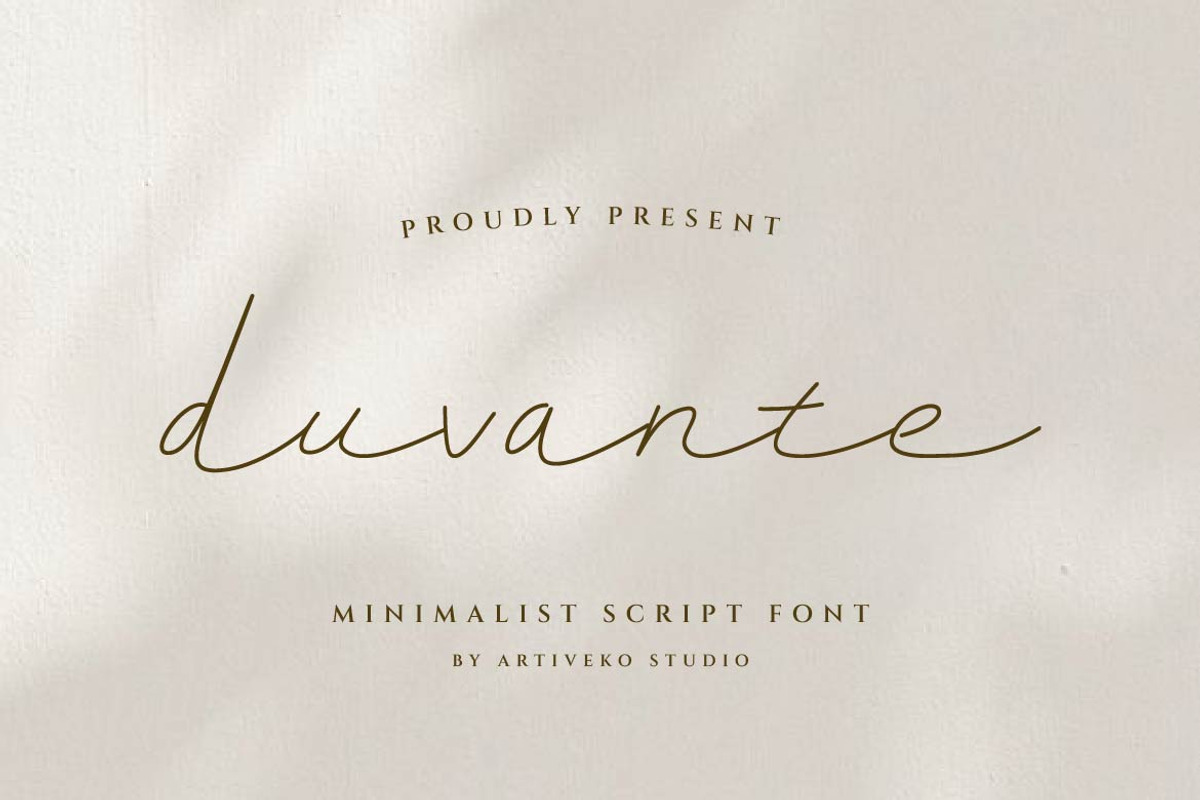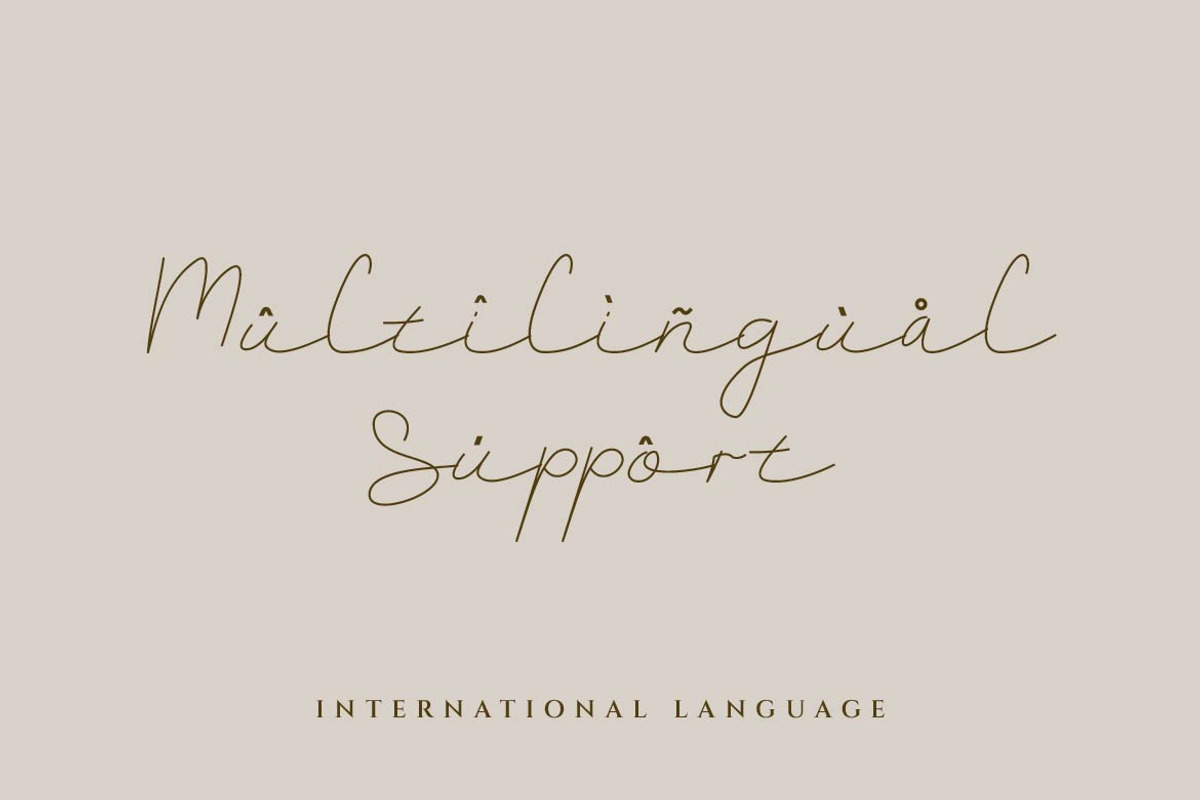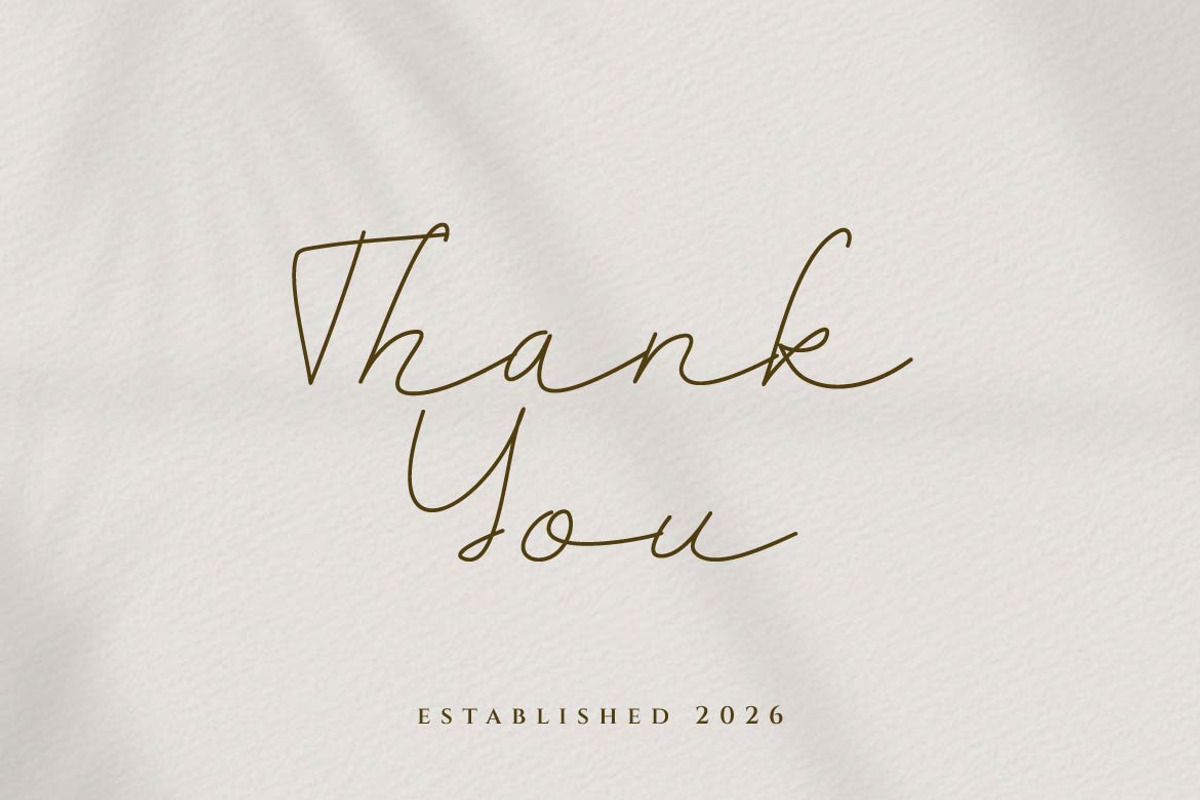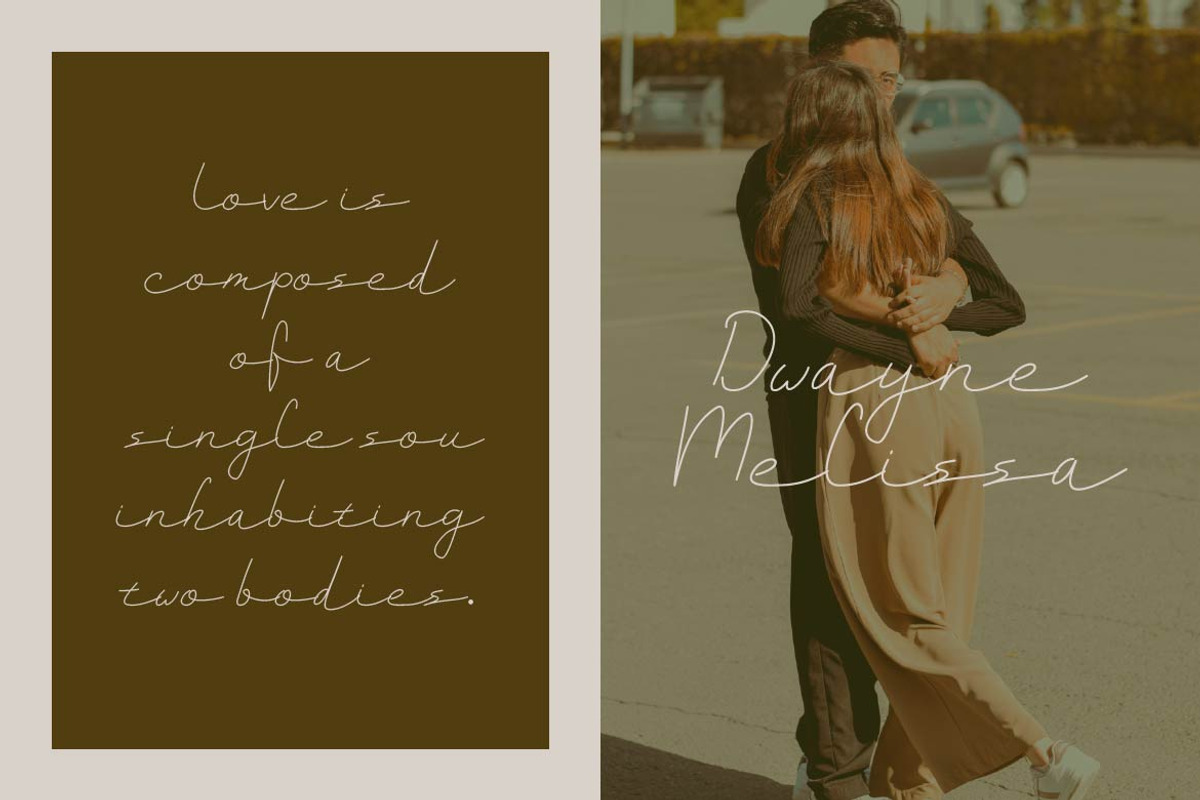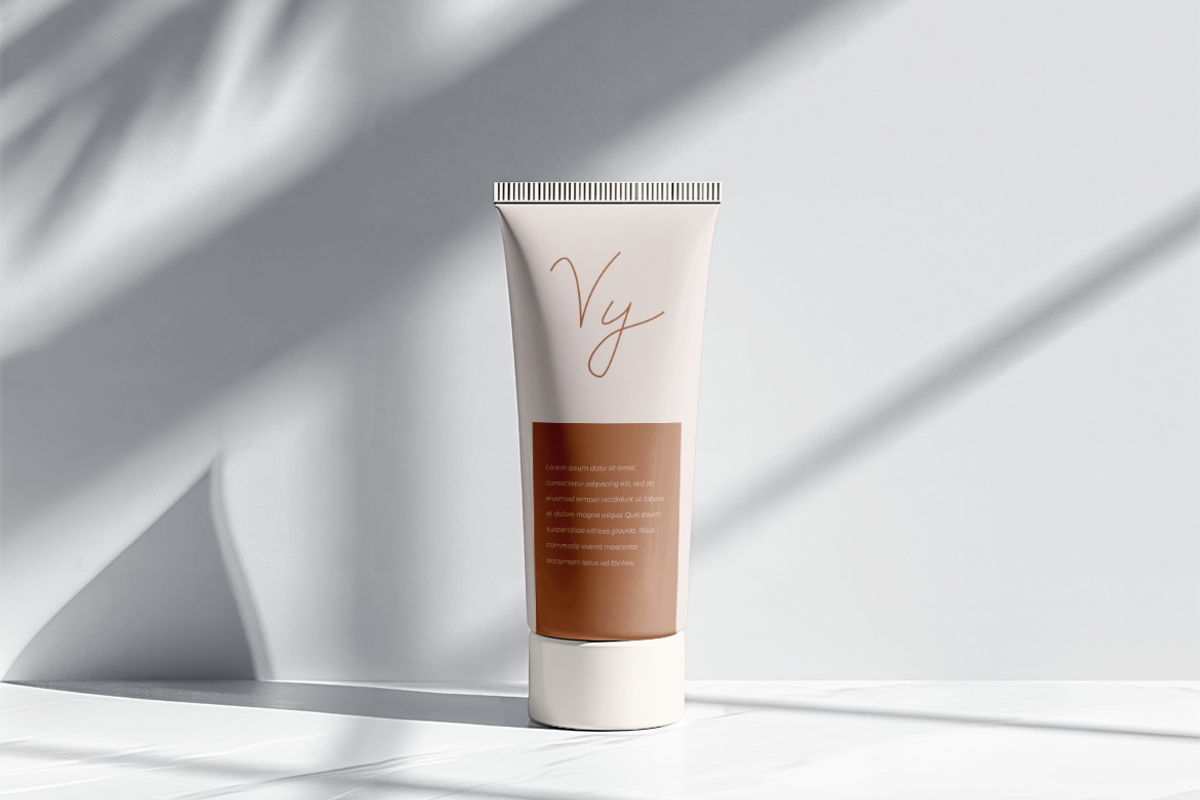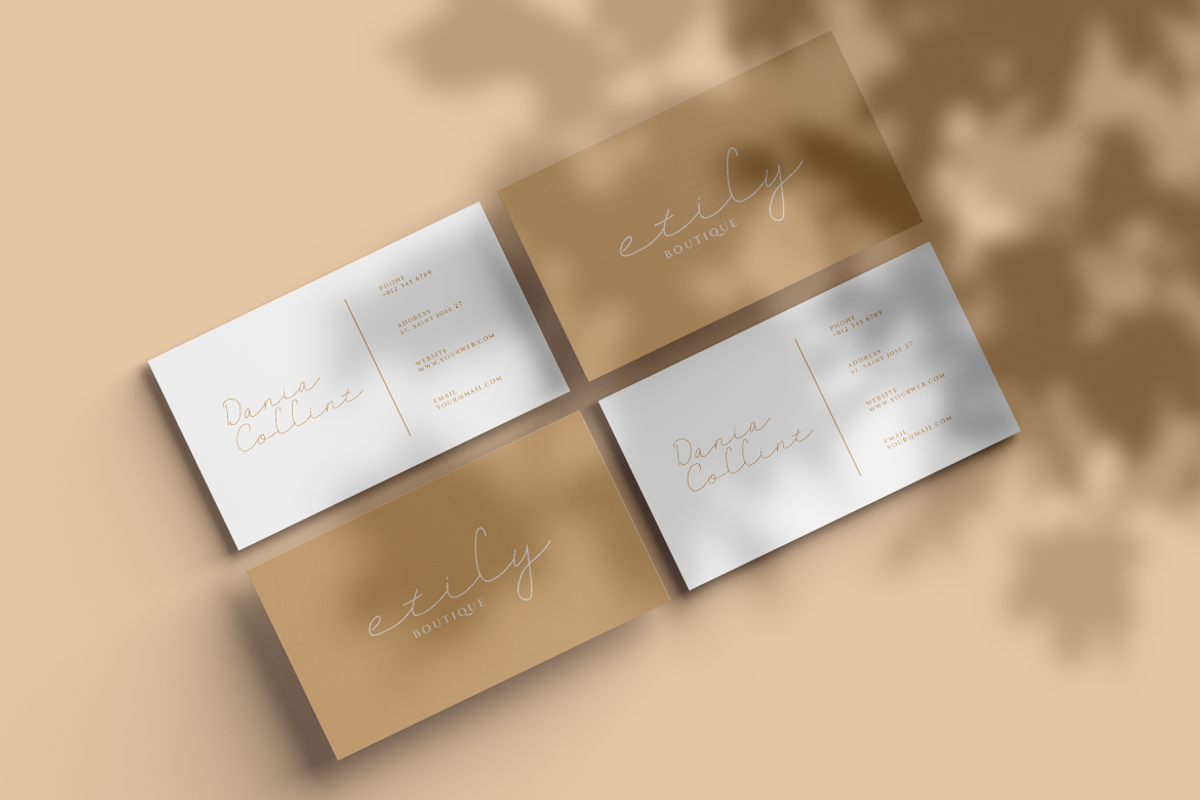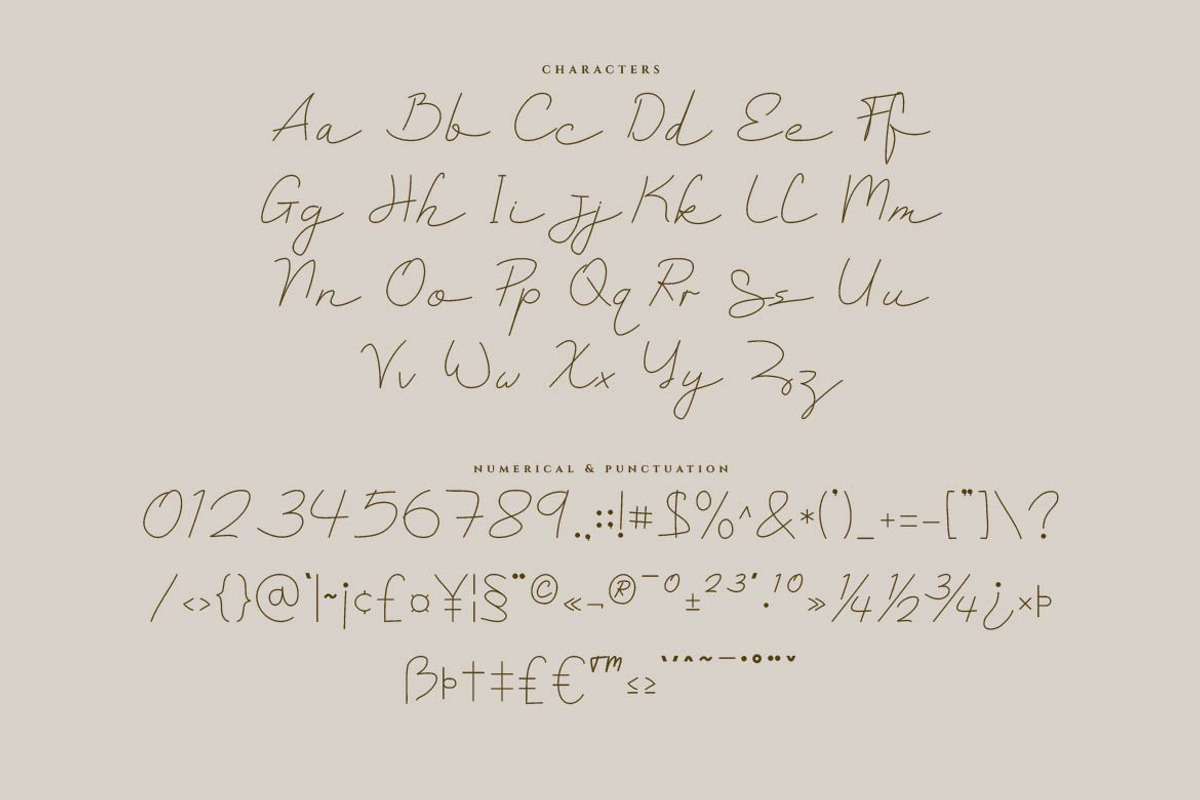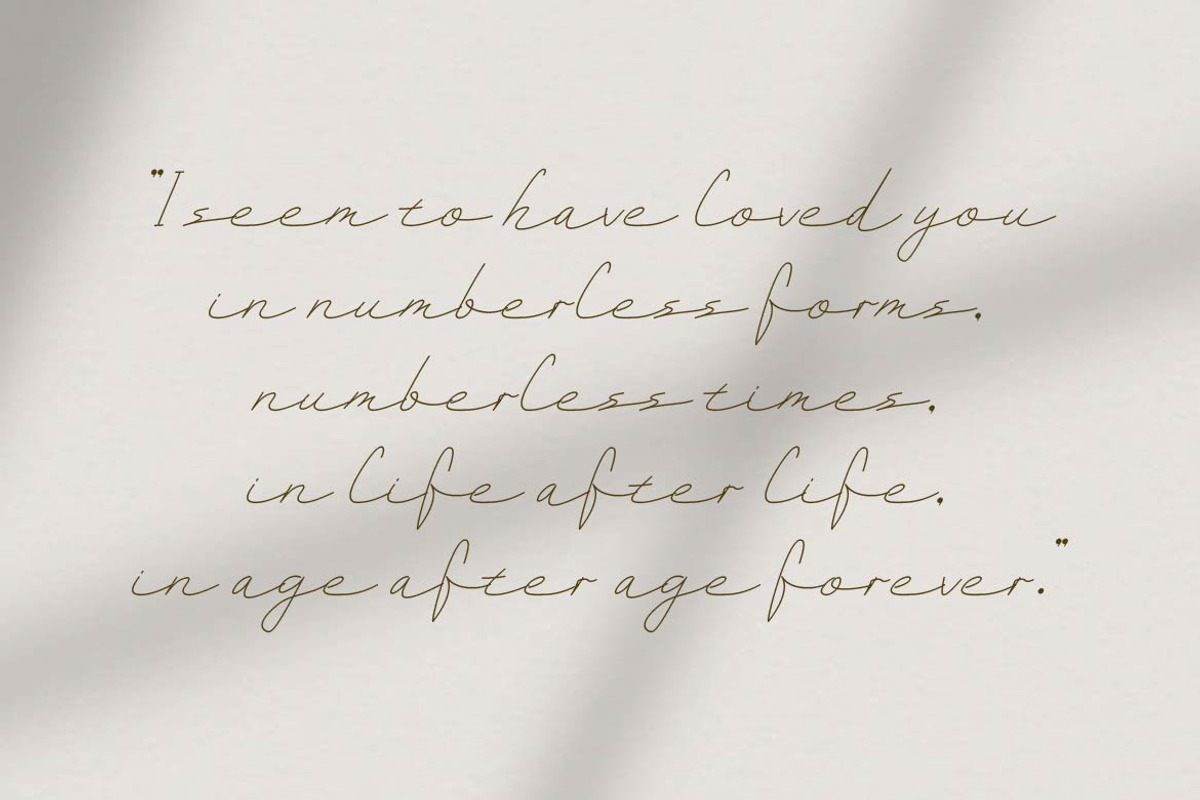
Duvante – Minimalist Script Font
Duvante is a minimalist signature script with a soft, effortless flow. Its thin, monoline strokes and continuous, connected letterforms create the quiet elegance of a handwritten signature — refined without feeling overdone.
Every letter moves with a calm, single-stroke rhythm, giving Duvante a clean and intimate character that works beautifully both on its own and alongside other typefaces. Its understated nature makes it especially versatile, adding a personal touch without overpowering the rest of a design.
Duvante is a great fit for minimalist branding, boutique logos, signatures, quotes, invitations, editorial titles, and product packaging that calls for a soft, refined finishing touch. It also pairs well with clean sans-serif or serif fonts for a modern font duo, or stands alone as an elegant accent in logos and social media content.
Simple, graceful, and quietly confident — Duvante brings understated elegance to any design.
Duvante — a minimalist signature script for quiet, refined typography.
Ton of glyphs